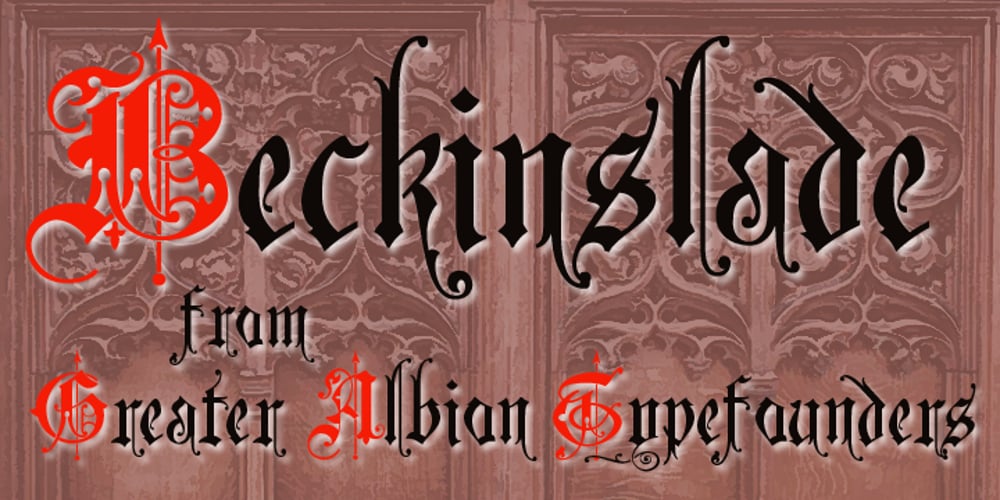
Beckinslade
Beckinslade font
Beckinslade Font Family was designed by Paul James Lloyd and published by Greater Albion Typefounders. Beckinslade contains 1 styles and family package options. Beckinslade is a lovely elaborate blackletter face, released just in time for Christmas, but useable at any time of the year. It is in the best traditions of Victorian Gothic revival, drawing inspiration from a range of sources and marrying them into one homogenous whole. The emphasis is on aesthetics rather than historical accuracy. Great fun though for anywhere ‘ye olde’ look is desired.